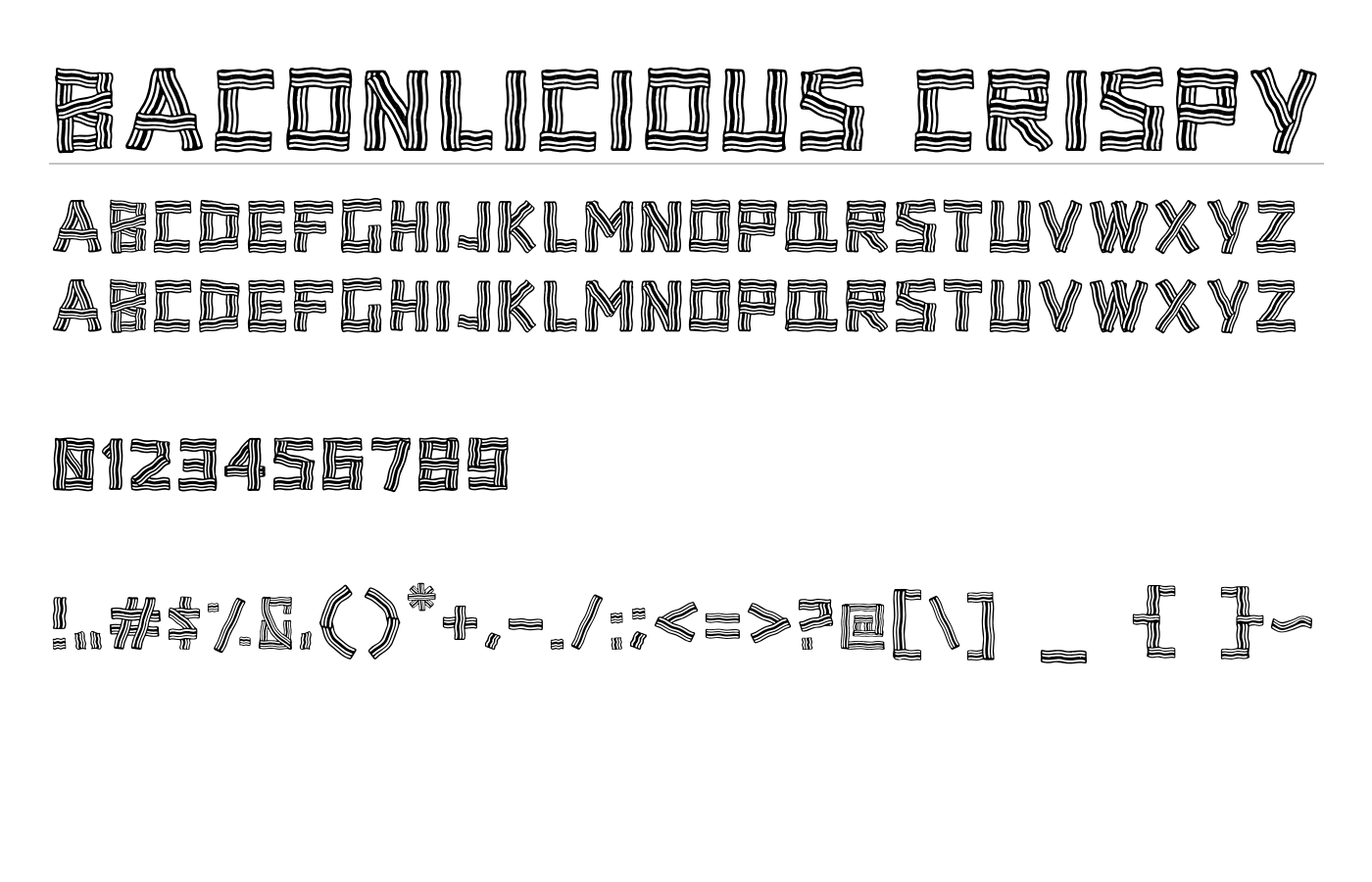
Baconlicious Font is a playful, hand-drawn display typeface with a quirky, textured look that mimics the layered, striped pattern of bacon strips. Its uppercase letters feature uneven, wavy lines and tight spacing, giving it a fun, casual feel perfect for food packaging, restaurant branding, or any project that calls for a unique, eye-catching style with a touch of humor. This font works best in headlines or logos where its distinctive personality can stand out and grab attention.
Baconlicious Font
About Baconlicious Font
| Font family | Baconlicious Font |
| Designer | Seth McWhorter |